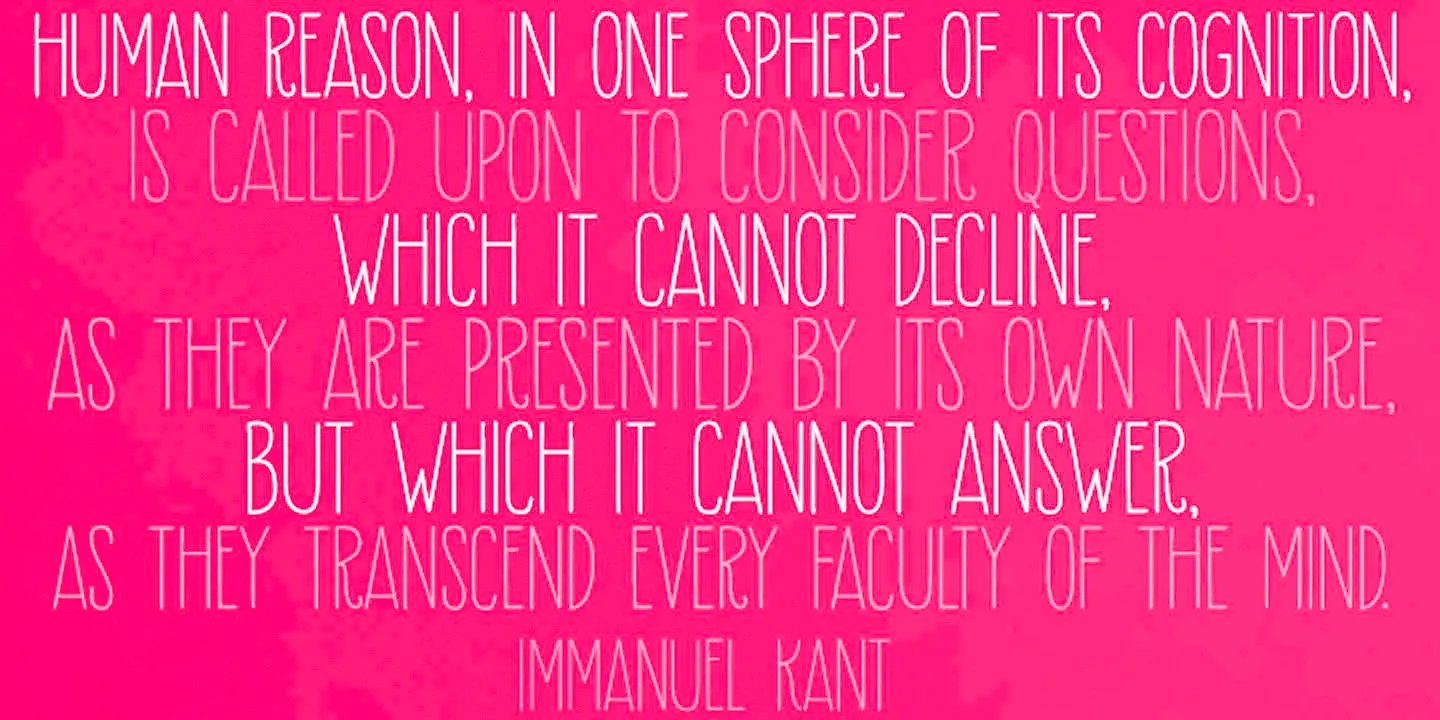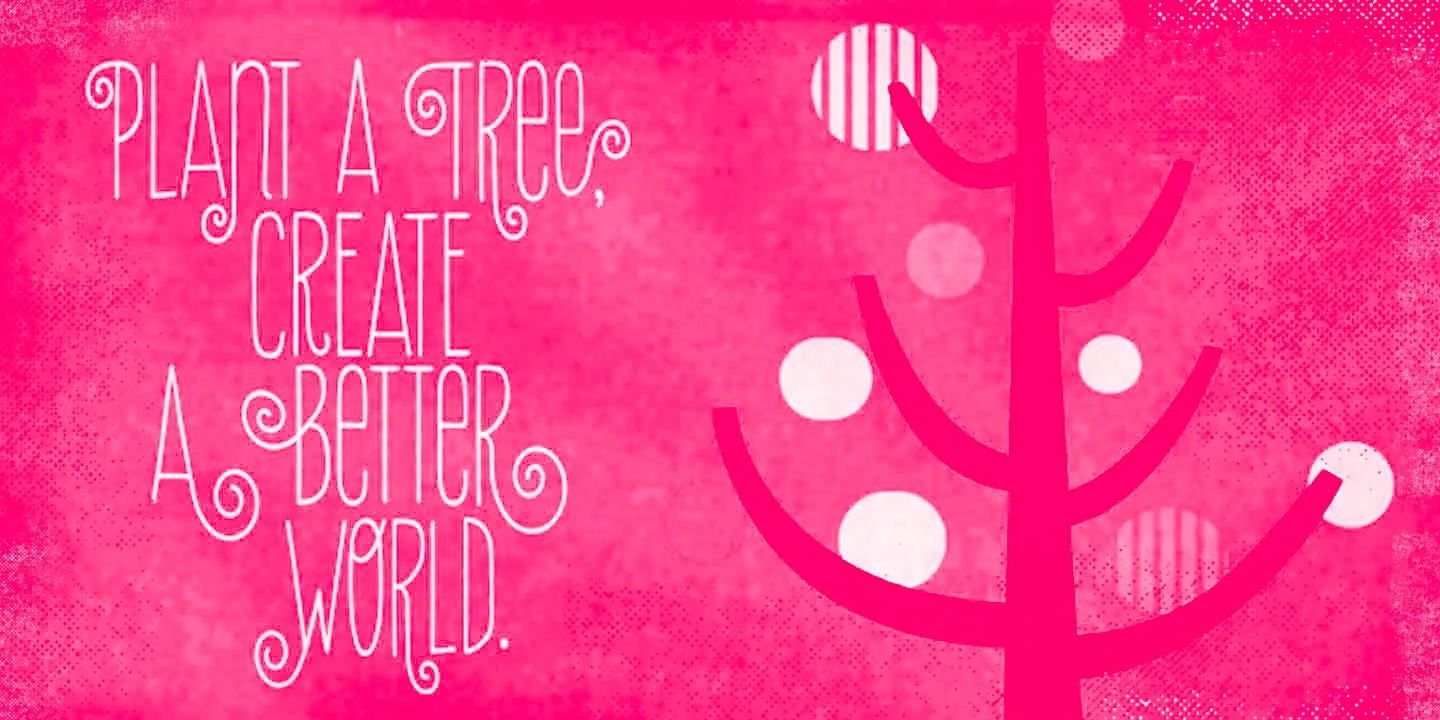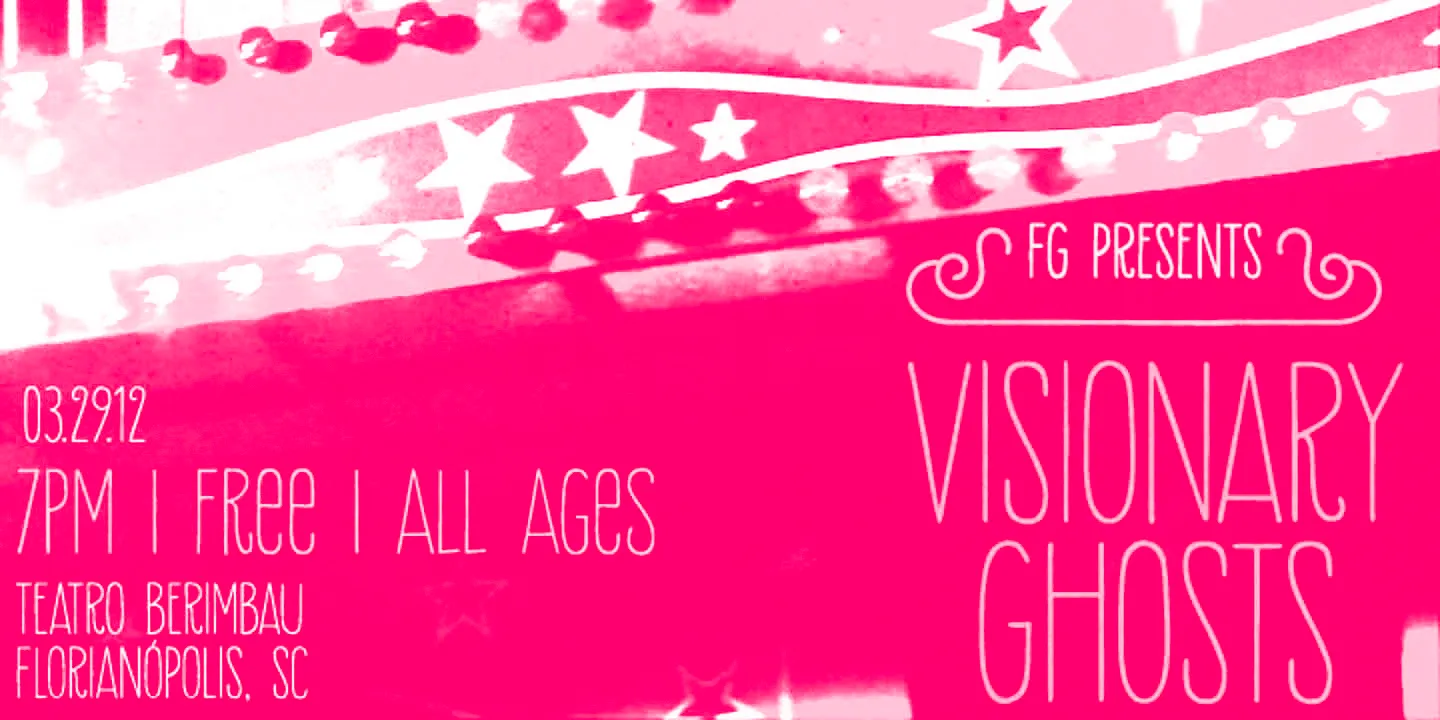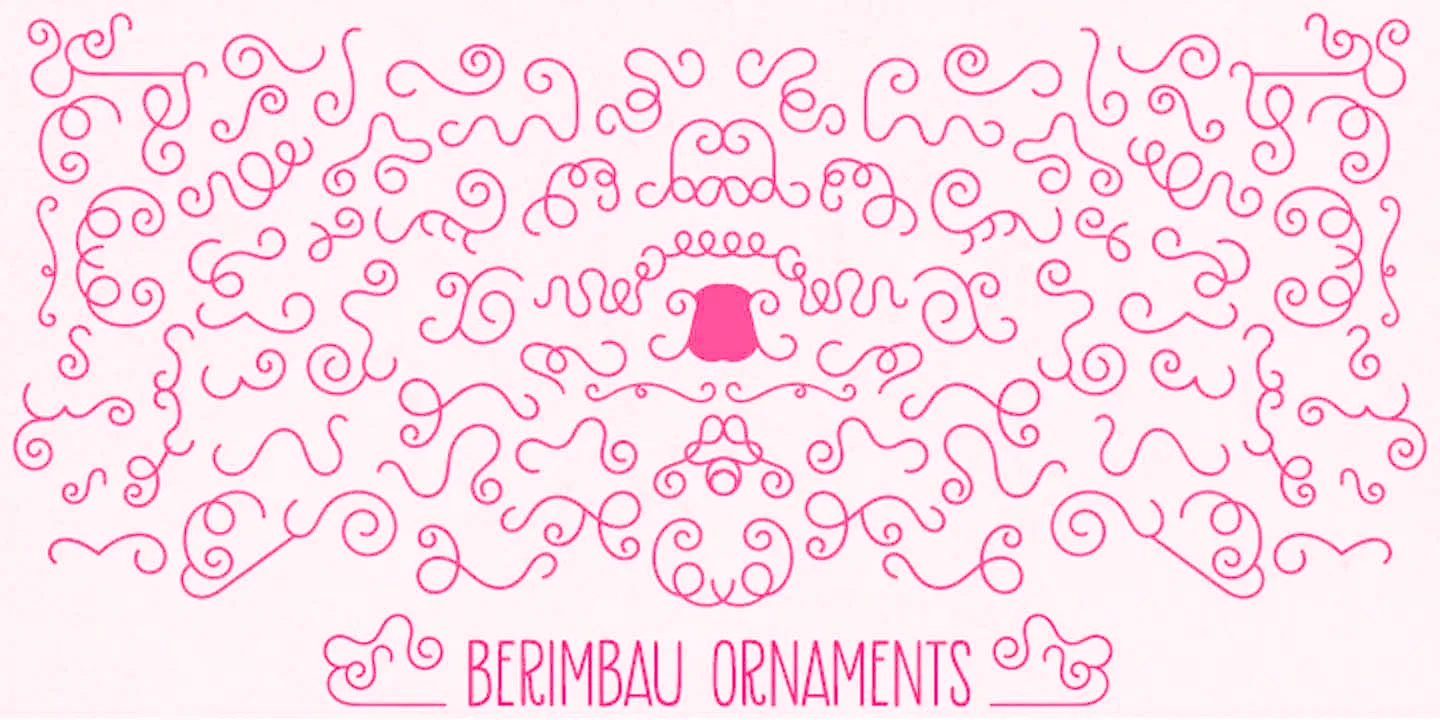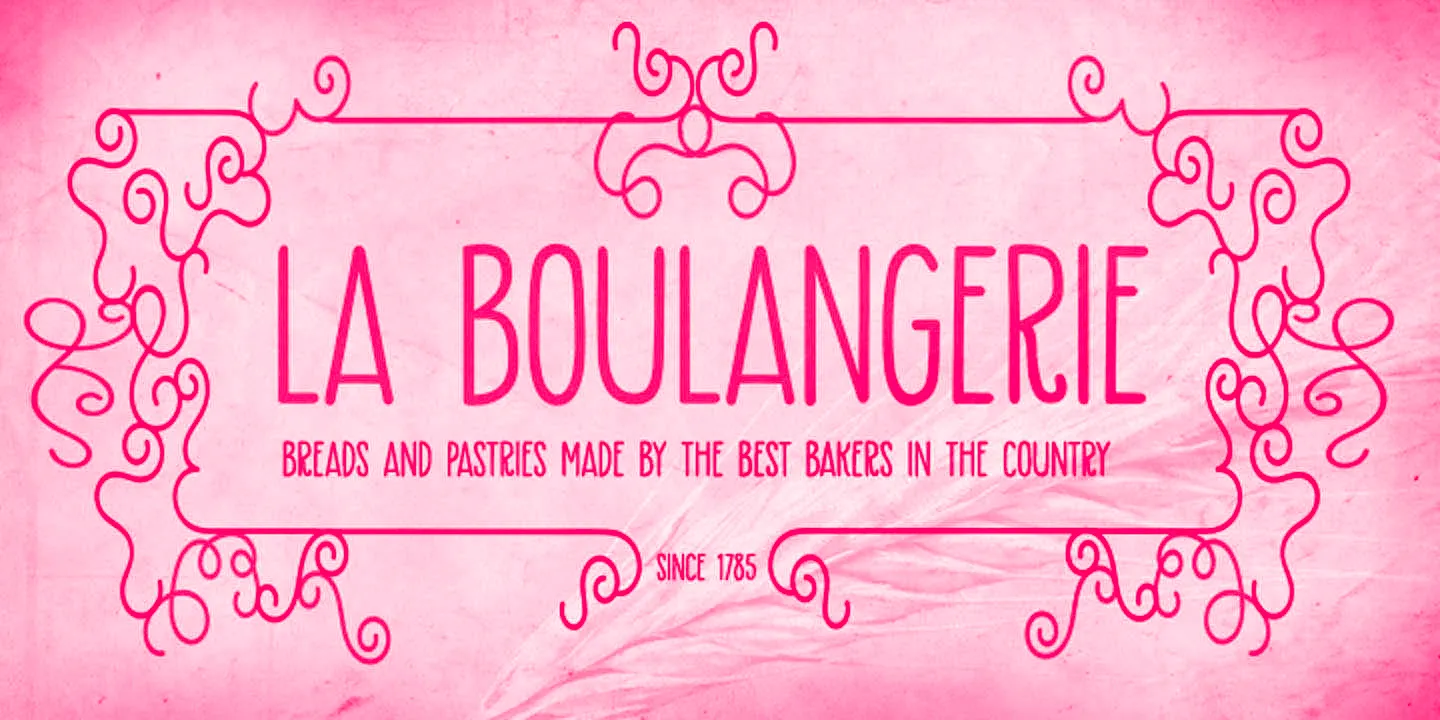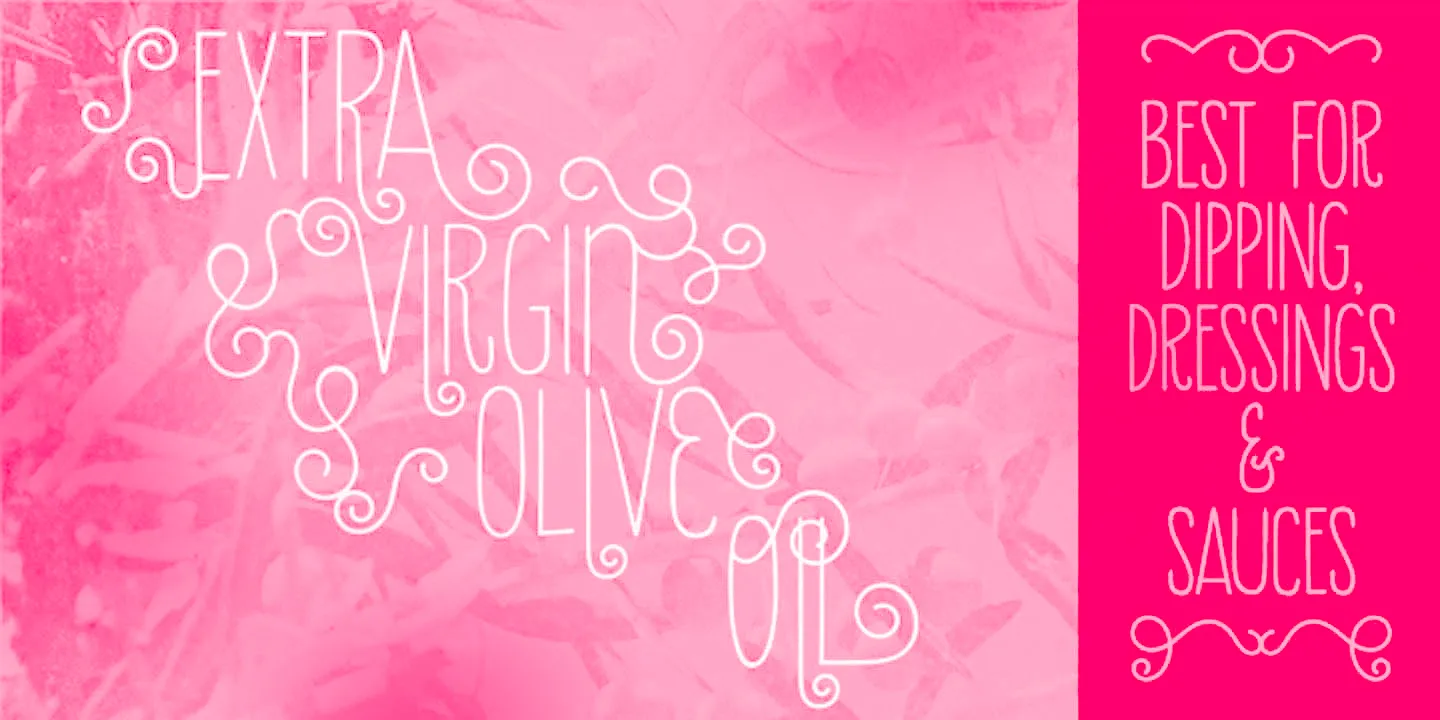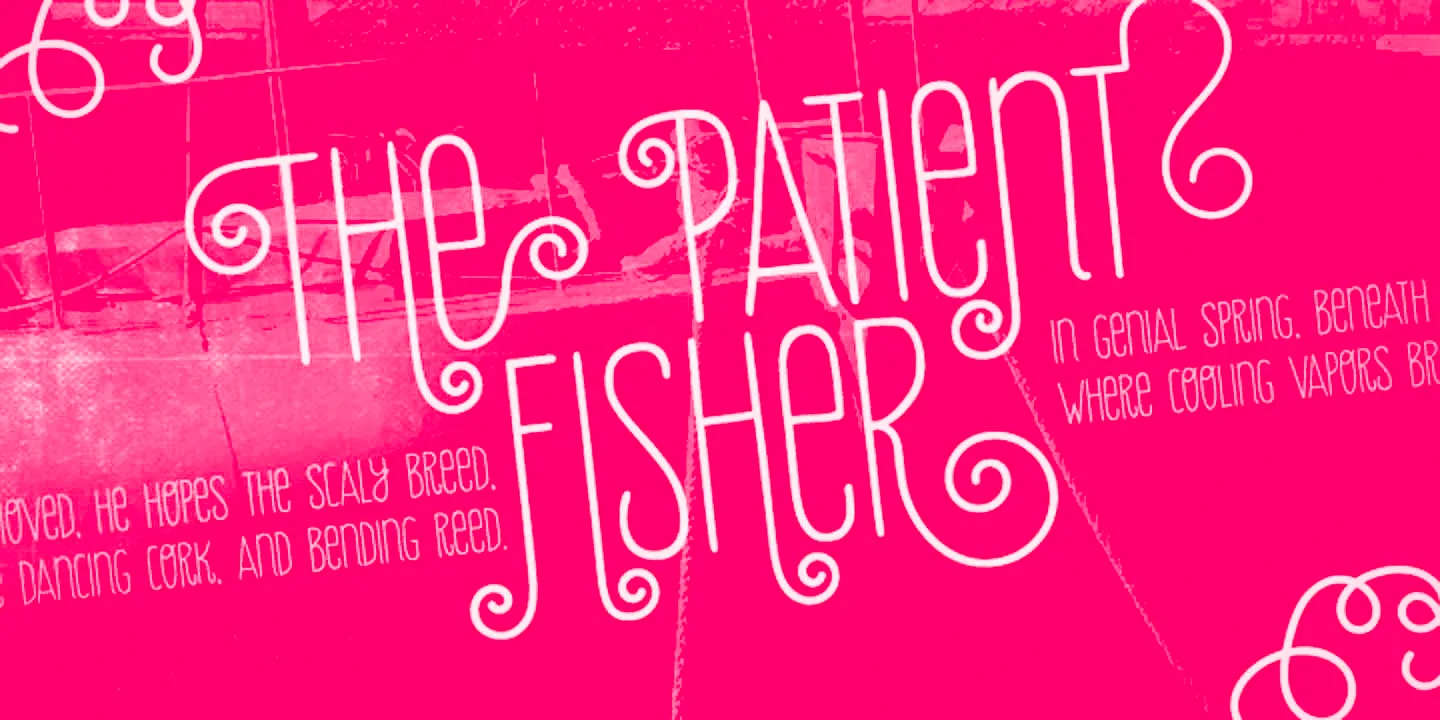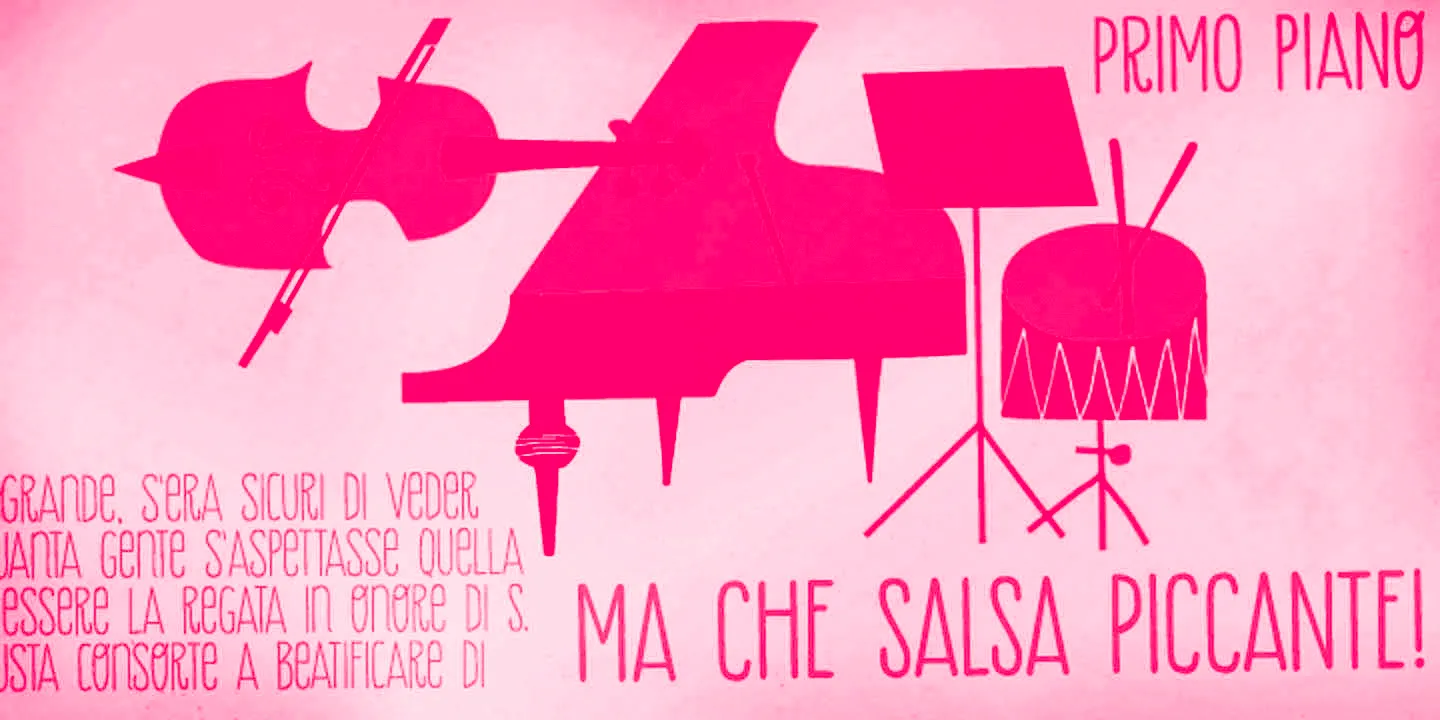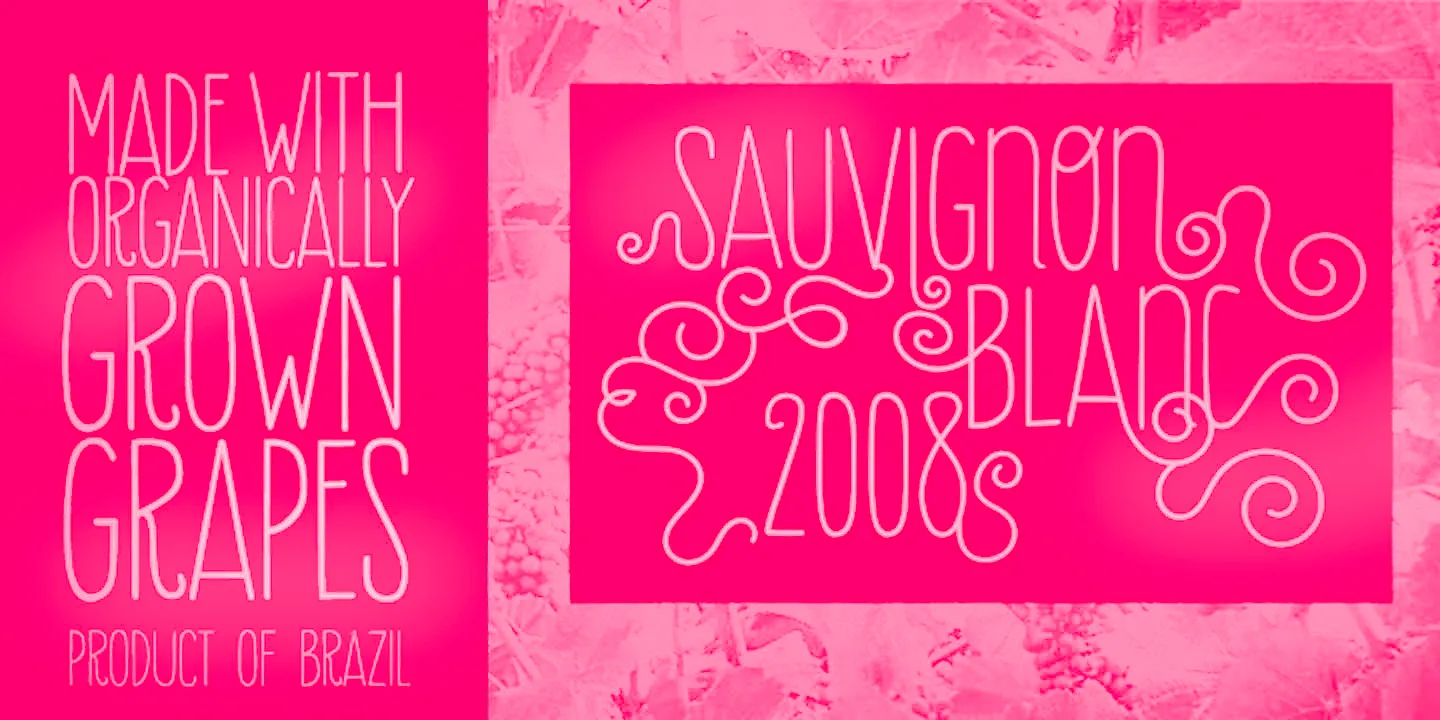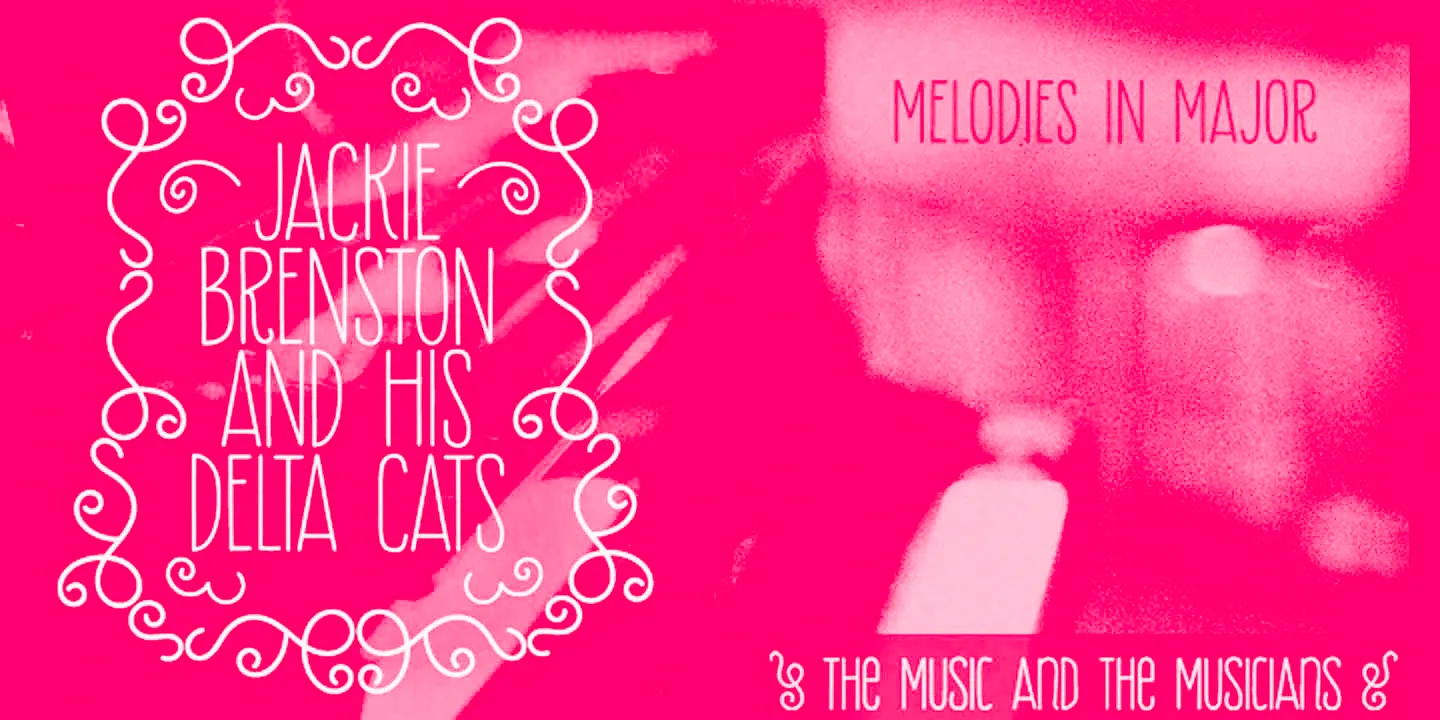
Berimbau Font Family
• Berimbau Swash
• Berimbau Regular
• Berimbau Bold
Berimbau
Berimbau is a whimsically hand-drawn sans serif. Its sprightly swashes and twisting stylistic alternates (say that three times fast!) play together with the tall letter shapes to deliver a really cool contextual effect. A heavier weight was made to provide that extra strength when a bit of boldness is welcome. Use this family for your packaging, posters, book covers, or anywhere else you want to add a little yumminess.
• Contextual Swashes
• Ornaments
• Swashes